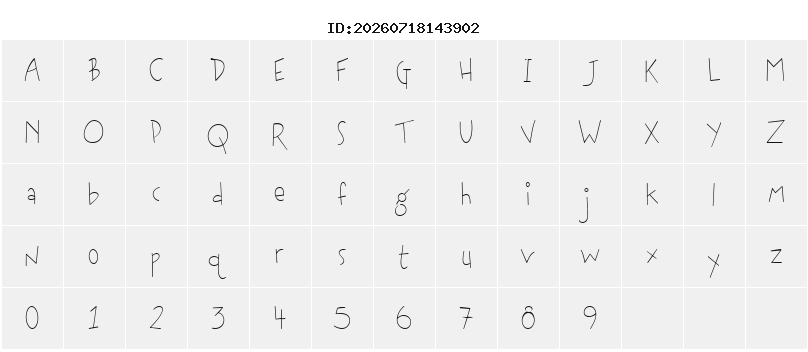
CK Eclectic Preview
• Font Name: CK Eclectic
About CK Eclectic.ttf
CK Eclectic.ttf is a modern, elegant sans-serif font designed for ultimate readability and visual harmony. Perfect for branding, headlines, web design, and print materials.